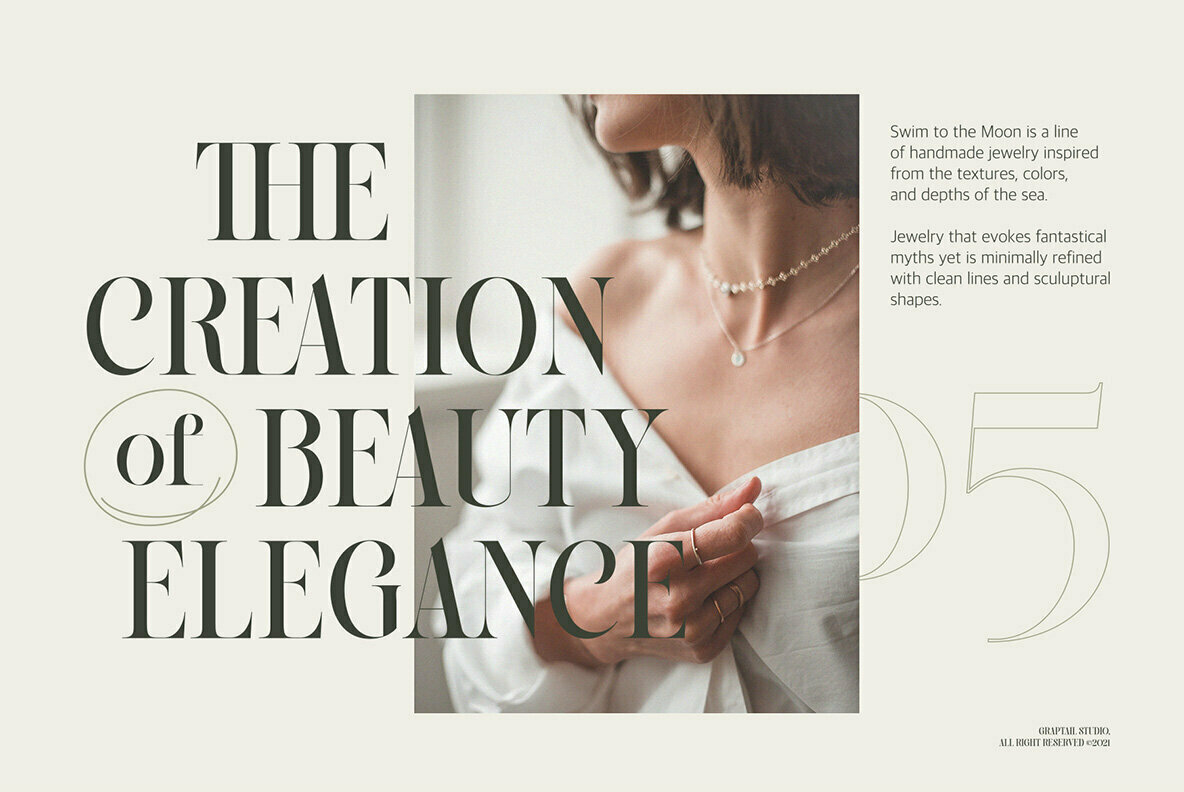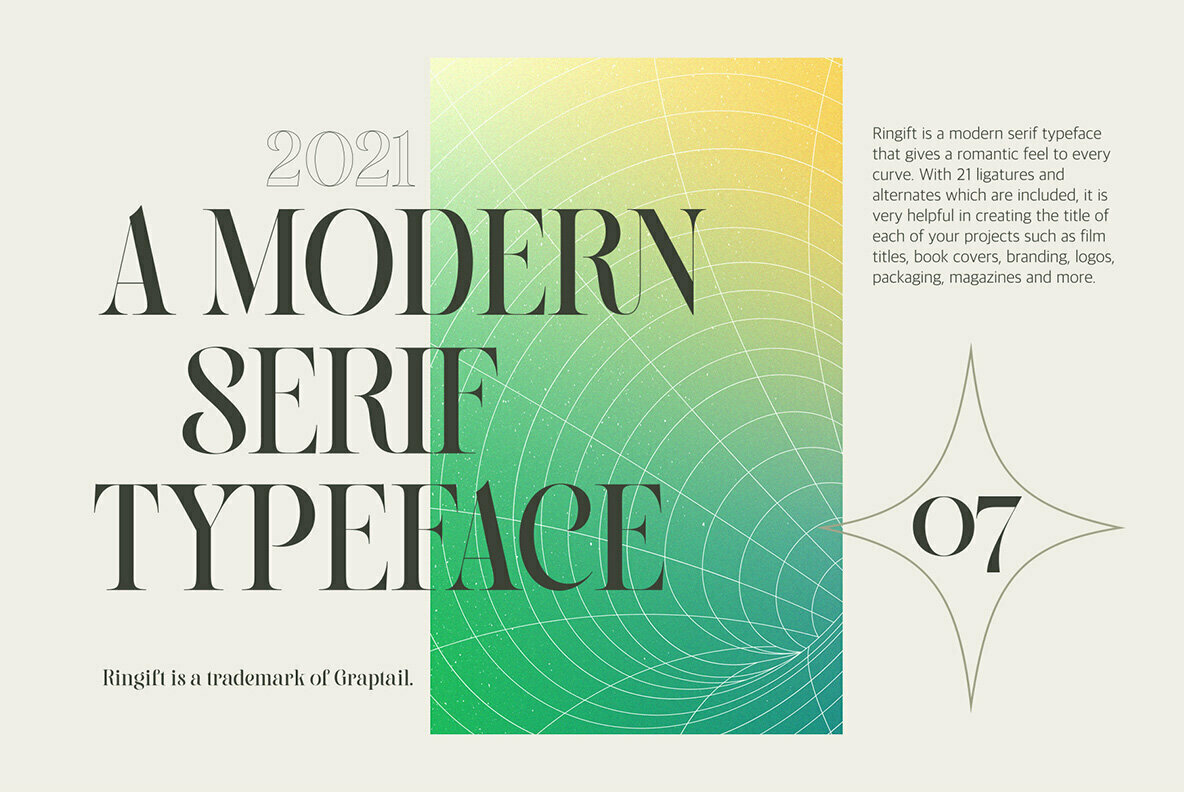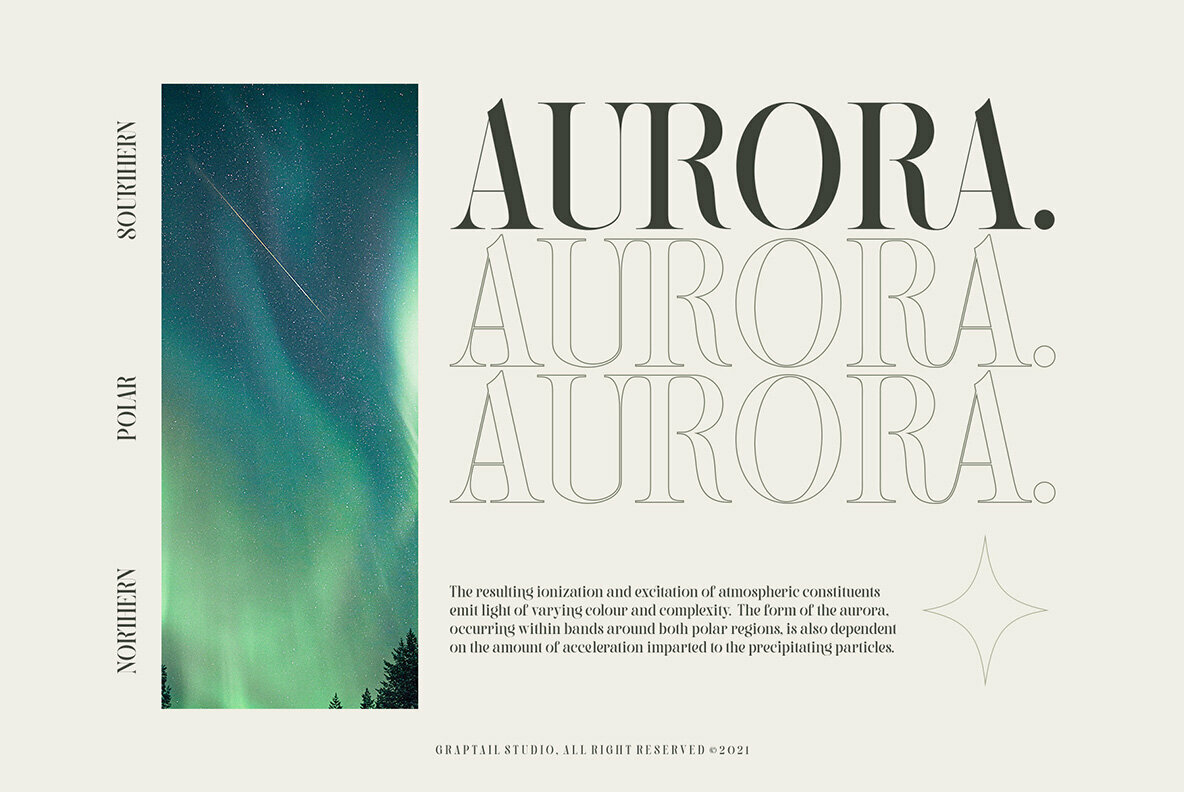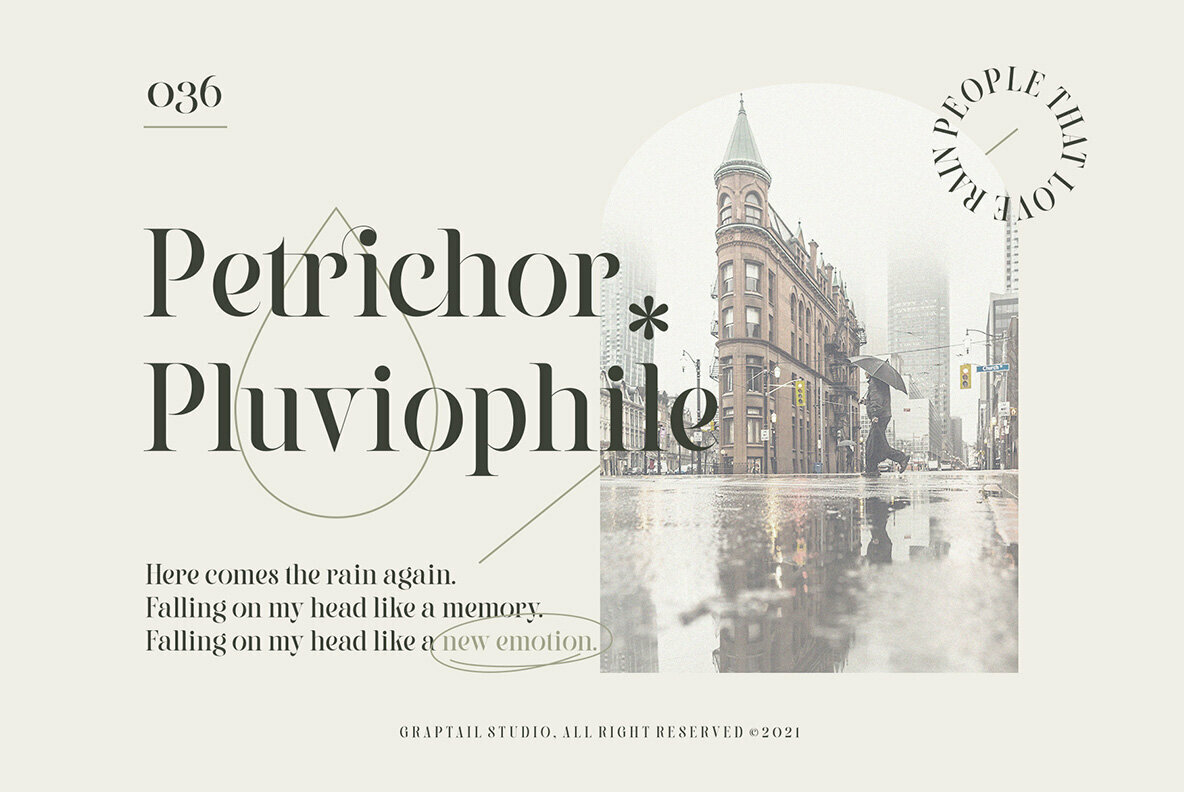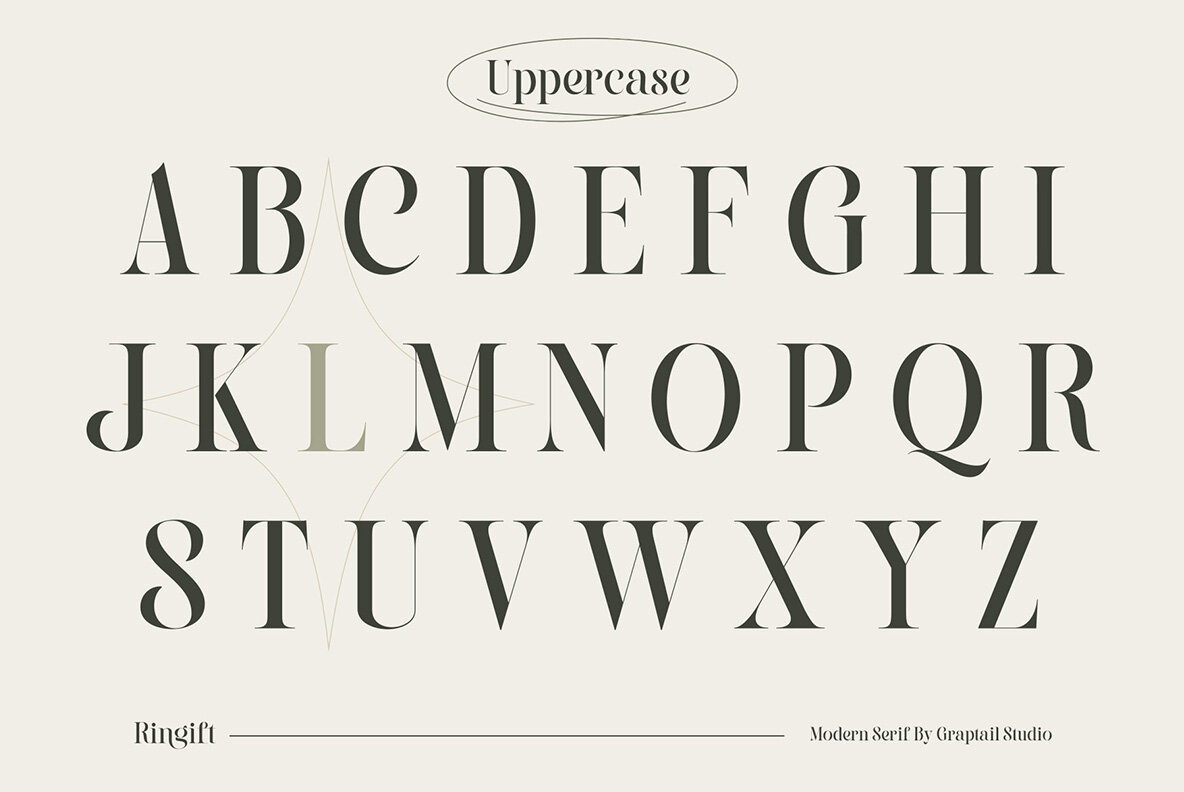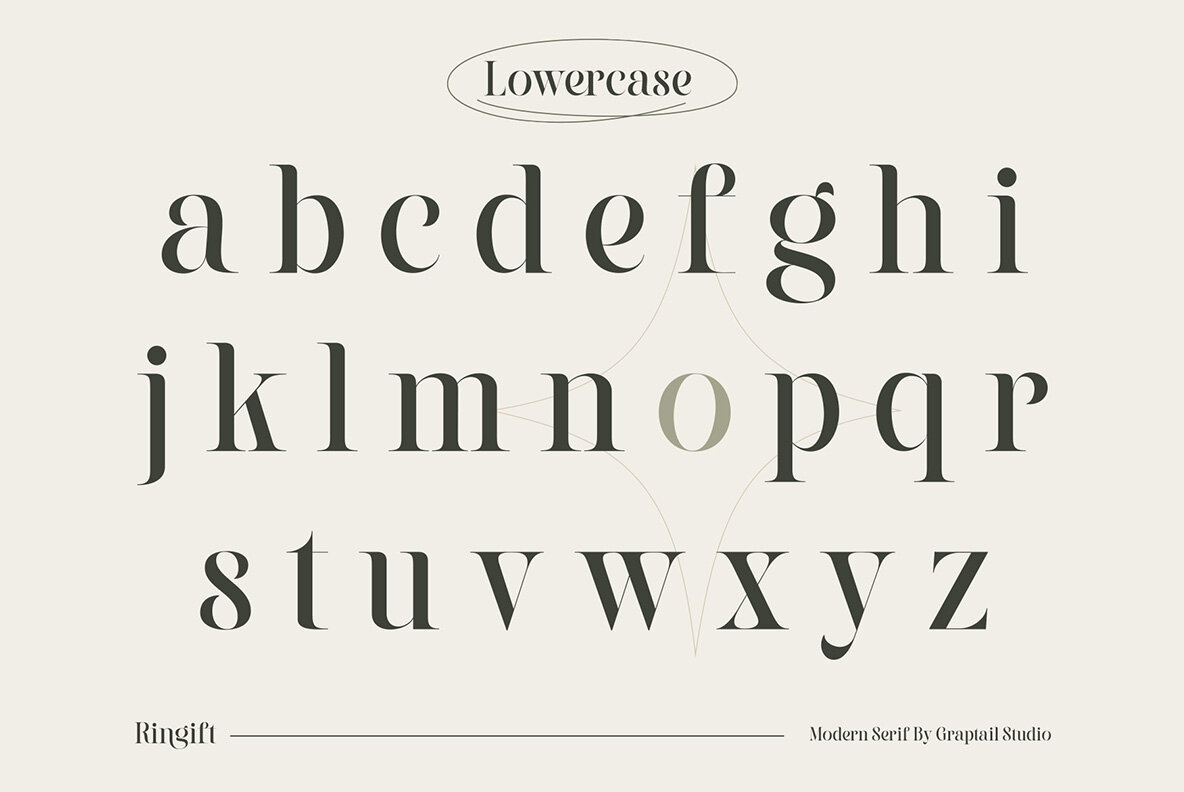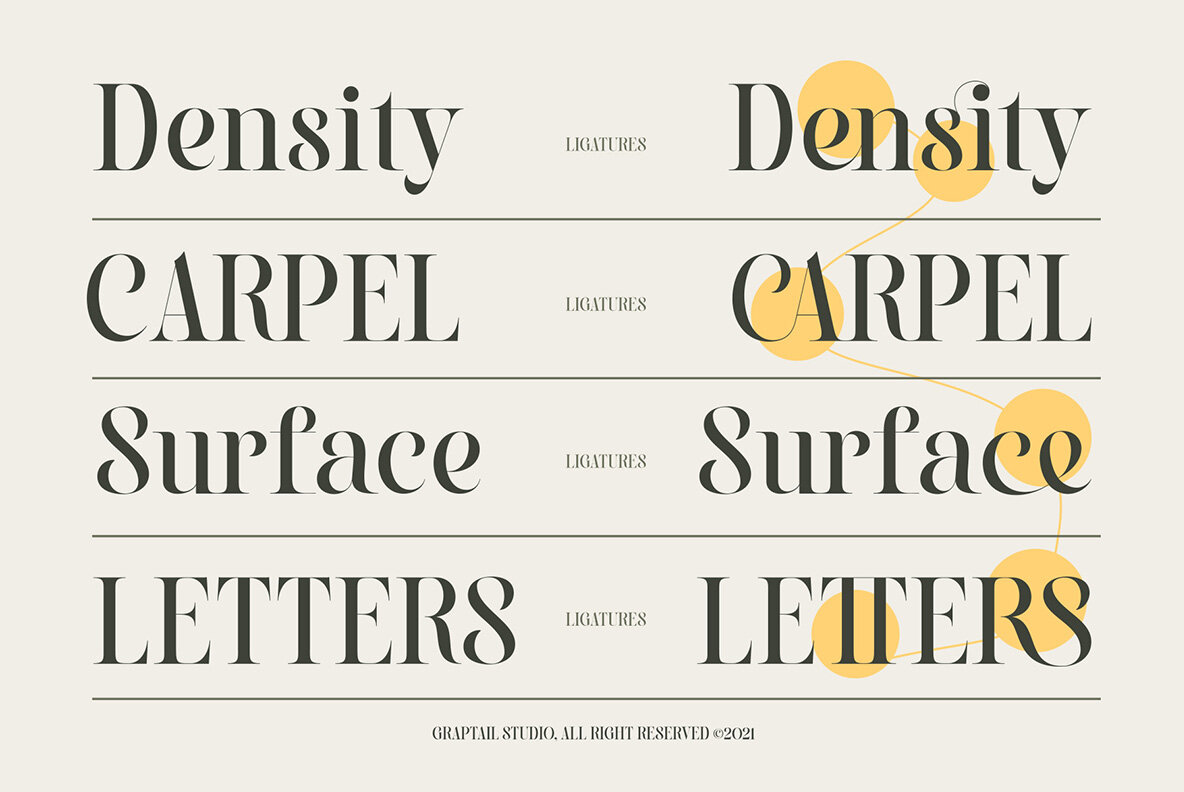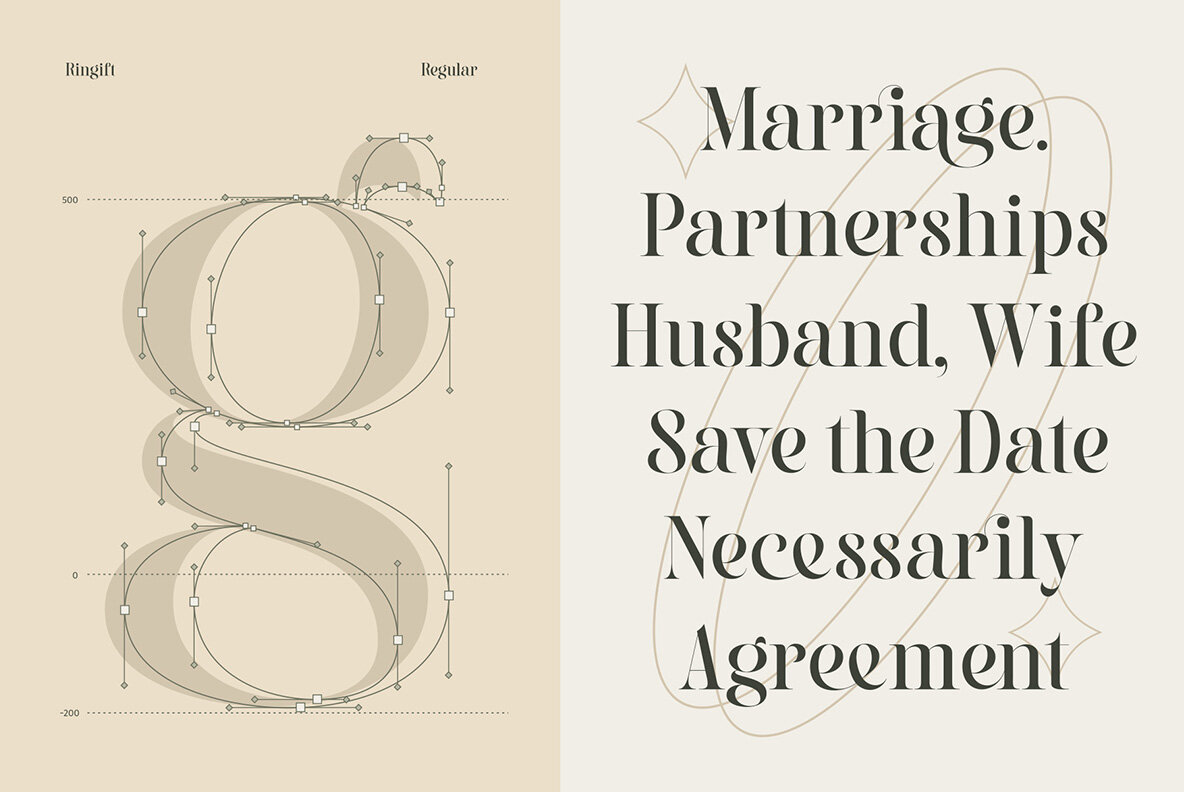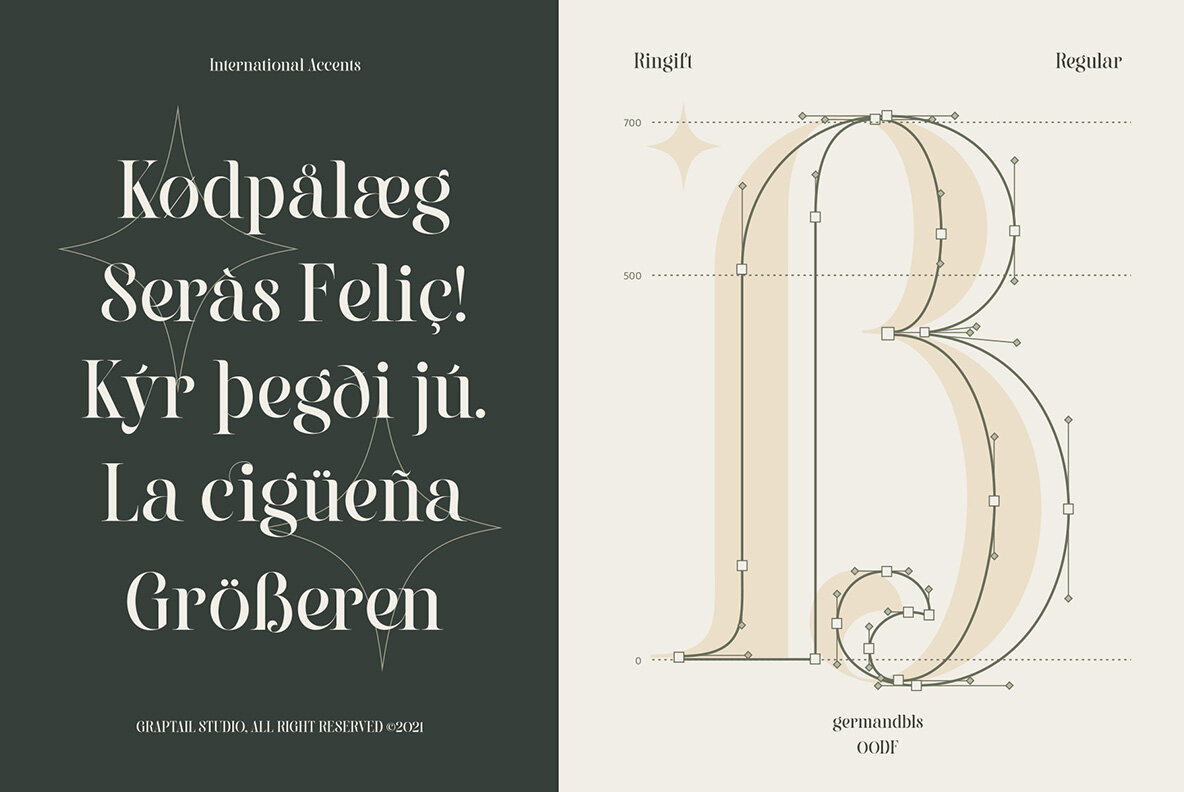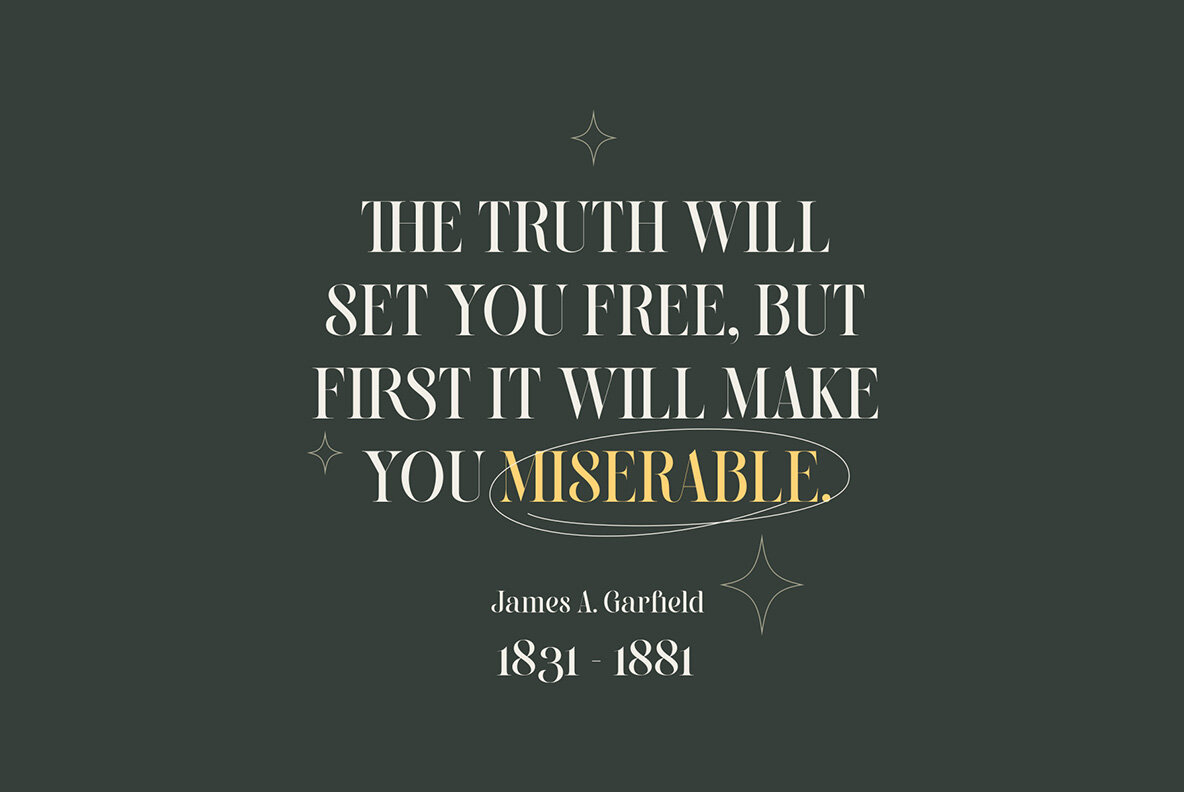
Ringift Font
Ringift Regular
Infuse your designs with charm using the Ringift typeface, known for its romantic curves and modern serifs. Graptail's creation offers versatility, making it ideal for a wide range of applications, from logos to art quotes. Whether you're designing greeting cards, branding materials, or movie titles, the font's 21 ligatures support diverse stylistic needs, enhancing the visual impact of your projects. The typeface also features PUA encoding, allowing for seamless integration of alternate characters. Tools like Character Map on Windows or Font Book on Mac simplify the process, while PopChar provides further accessibility across platforms.Ringift: A Modern Serif Embodying Elegance